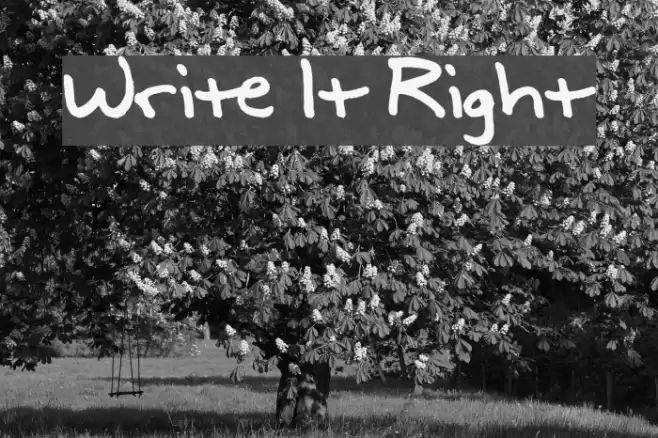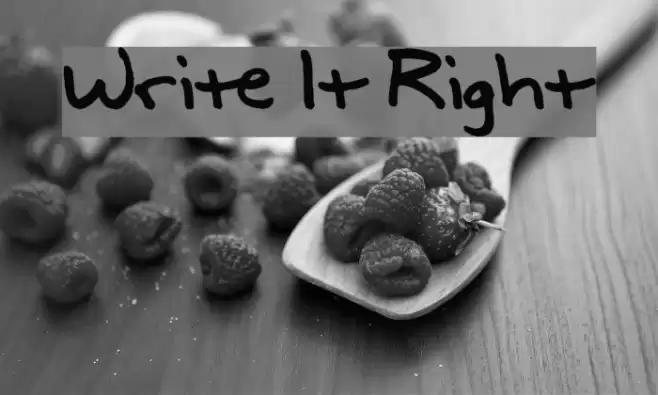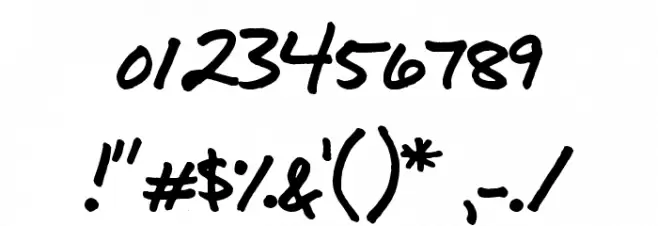
Write It Right Font
Write It Right Description
This font exhibits a casual, handwritten style with a playful and informal appearance. The characters are slightly irregular, mimicking the natural flow of handwriting. The strokes are bold and consistent, providing a strong presence on the page. The uppercase and lowercase letters maintain a cohesive style, with rounded edges and a slight slant that adds to the font's relaxed feel. Numbers and special characters are crafted with the same attention to detail, ensuring readability and aesthetic harmony. This font is ideal for projects that require a personal touch or a friendly, approachable vibe.
A casual, handwritten font with bold, rounded strokes and a playful style from Uncategorized fonts.
- Proposed Projects: Greeting cards, personal blogs, informal invitations, children's books, and creative posters.
- Overall Style: Casual, Playful
- Use Case: Headlines, Informal text, Creative projects